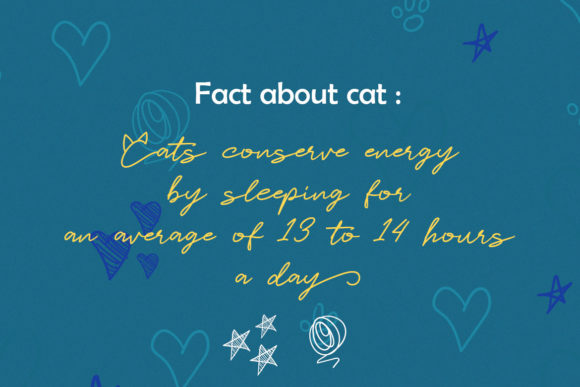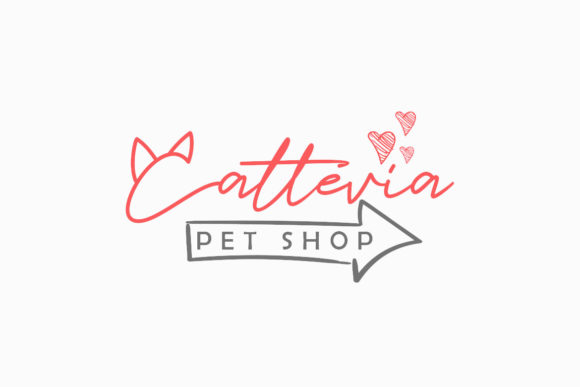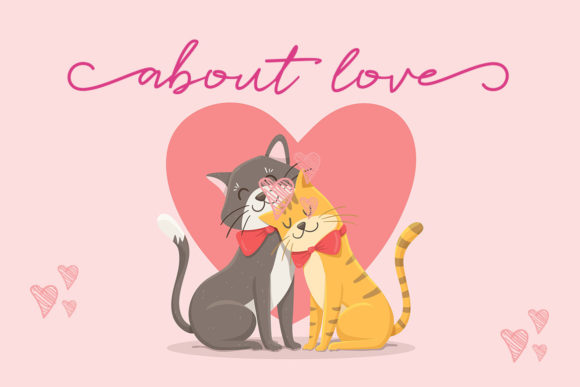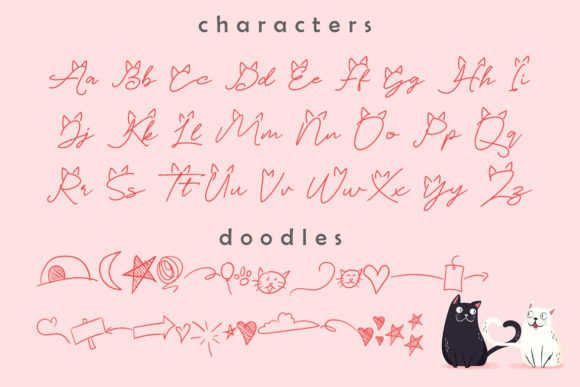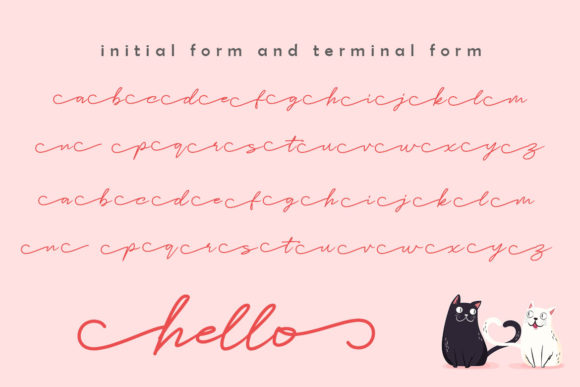
Introduction to Catlove Font
As a crafter, have you ever found yourself staring at a blank canvas, searching for that perfect design element to bring your creative project to life? I know I have. And then, it happens – a spark of inspiration hits, and you’re off and running. For many of us, that spark is often fueled by the whimsy and charm of a unique font. And today, I’m excited to share with you a design resource that’s sure to ignite your creativity: the Catlove Font.
With its high-quality, hand-drawn look and transparent background, the Catlove Font is a must-have for any designer or crafter looking to add a touch of personality to their work. And the best part? It’s free to download, making it an accessible and valuable resource for creatives of all levels.
Key Features of Catlove Font
- Unique, cursive font style with a playful and whimsical touch, ideal for cat lovers and animal enthusiasts.
- Transparent background, making it easy to layer and customize in various design applications.
- Perfect for use in digital art, graphic design, and other creative projects where a touch of personality is needed.
- Designed to be versatile and adaptable, suitable for a wide range of design applications and themes.
Honest Review: Catlove Font
I recently had the chance to work with the Catlove Font, and I must say it’s been a delightful experience. As a designer, I’m always on the lookout for high-quality design resources that can elevate my creative projects. The Catlove Font did not disappoint.
What works well: ✨ The Catlove Font is incredibly versatile and can be used for a wide range of projects, from children’s books to pet-related designs. The font is available for free download, making it an excellent resource for designers who are working on a budget.
- High-quality design with a transparent background, making it easy to use in various design scenarios
- Perfect for creative projects that require a playful and whimsical touch
However, I did encounter some limitations: ⚠️ The font is not as extensive as some other font families, with only a limited number of styles and weights available. Additionally, the font may not be suitable for projects that require a more formal or professional tone.
Overall, I’m very impressed with the Catlove Font and would highly recommend it to designers who are working on creative projects. It’s a great design resource that can add a touch of personality and whimsy to any design.
Experiment with different font sizes, styles, and colors to create a unique look. Use the Catlove Font in conjunction with other design elements to add depth and interest to your project. Don’t be afraid to try new things and push the boundaries of what’s possible with this versatile design resource.
The Catlove Font is perfect for a variety of creative projects, including social media graphics, blog posts, and advertising materials. It’s also great for adding a touch of whimsy to presentations, documents, and other written content.